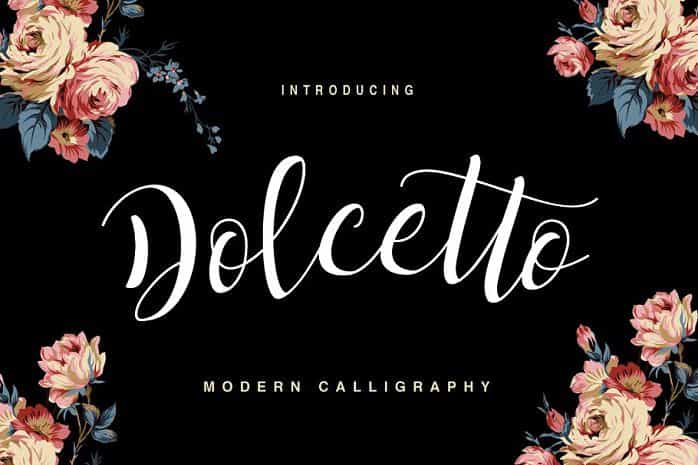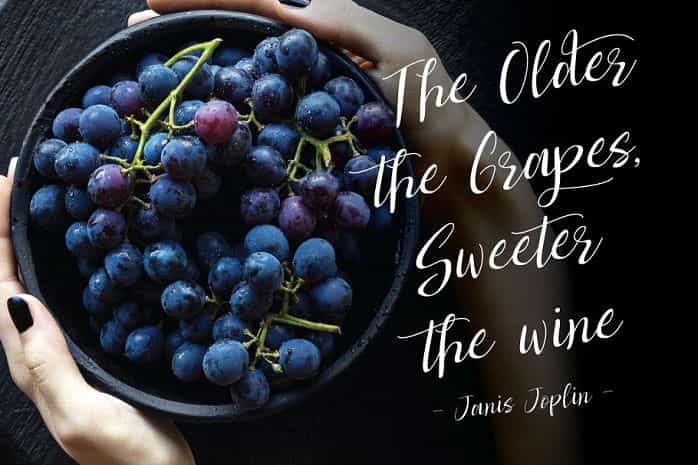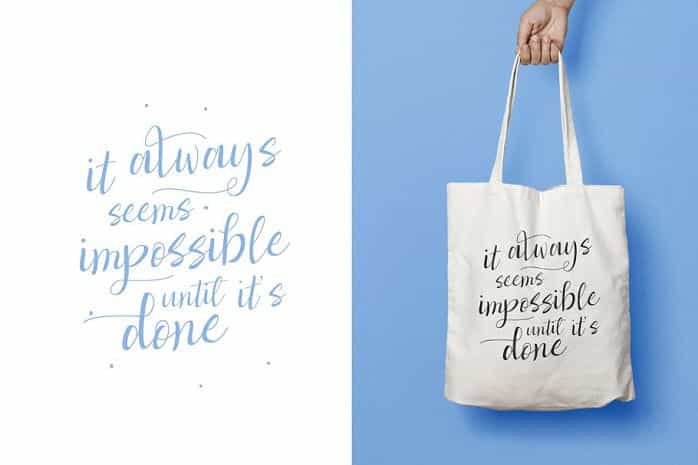
The New Script typeface called Dolcetto Font. The following characters are excellent for creating attractive messages, Dolcetto can be mixed and matched with a bunch of other characters to suit your project. Dolcetto Script is a Modern Calligraphy Script Typeface with an amazing character and a multitude of letter variations to make that perfect and unique design. It is suitable for a logo, a name tag, handwritten quotes, product packaging, goods , social media and greeting cards.